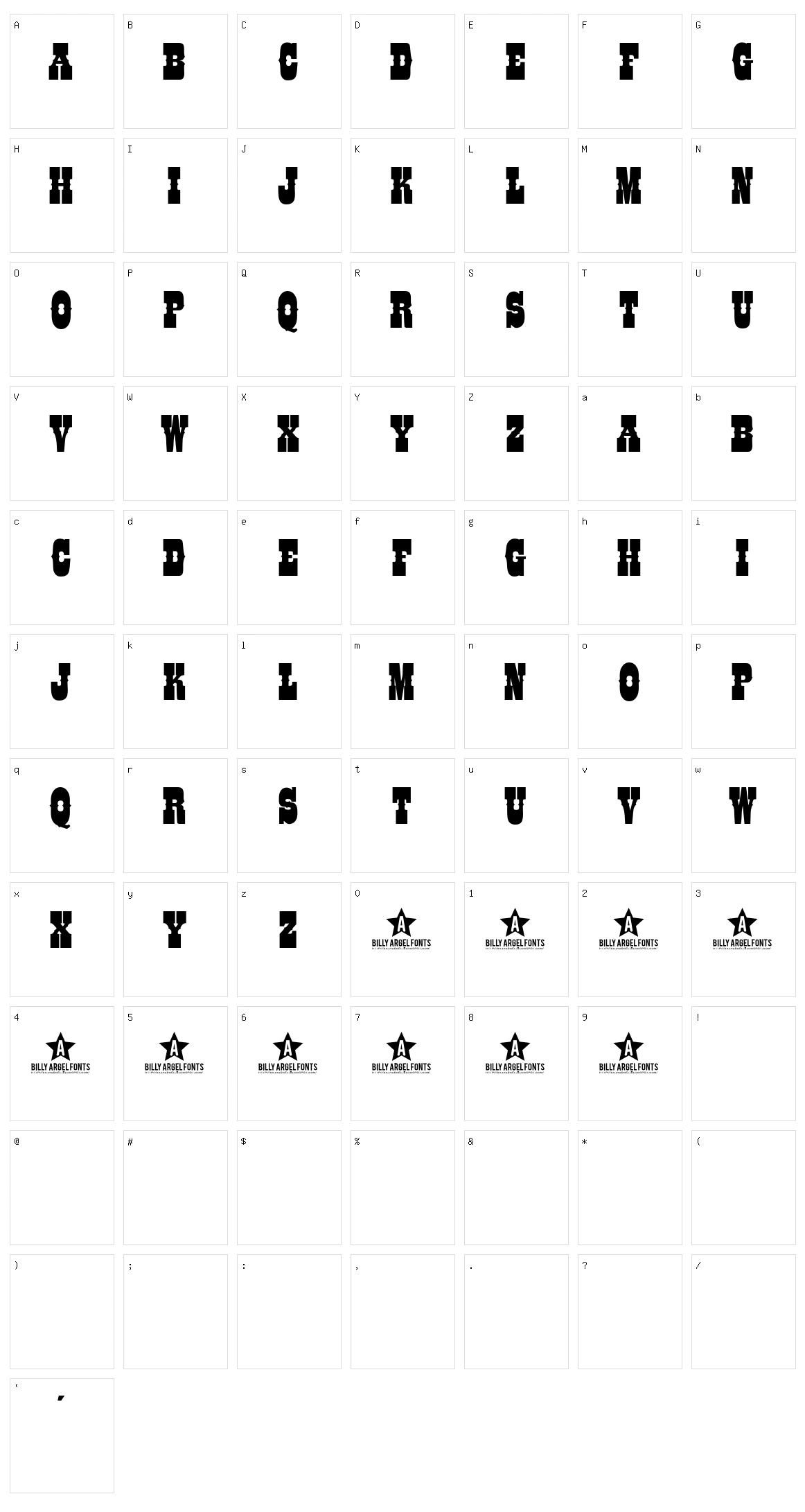
Colt Font
Description: The free font Colt Font is carefully designed by Billy Argel Fonts ®, showcasing a thoughtful balance of creativity and usability and falls under the Western font style. When you download the ZIP file, it contains only 7.83 KB of font files, making it lightweight and quick to download. Please review the license details below to understand permitted usage and distribution rights. If license information is not available, we recommend using this font for personal projects only or contacting the author directly for commercial usage permissions.